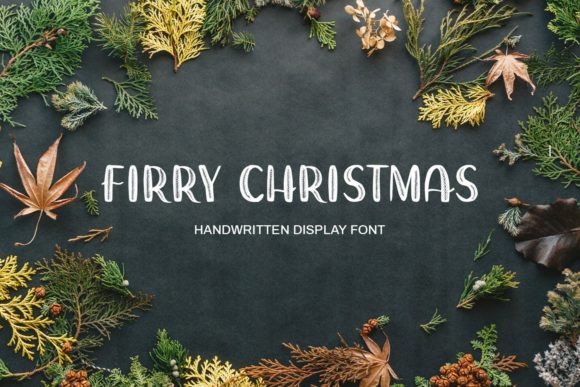
Introducing Firry Christmas Font - A Festive Delight for Your Christmas Creations!
Step into a world of Christmas cheer with Firry Christmas Font, an enchanting display font that will add a touch of magic to all your festive designs. Crafted with the essence of Christmas, this font exudes joy, warmth, and the spirit of the season.
With its playful and whimsical style, Firry Christmas Font captures the charm and wonder of the holiday season. Each letter dances with a Christmas spirit, adorned with delicate ornaments and intricate details that evoke the beauty of a snowy winter wonderland.
Imagine sending heartwarming Christmas cards adorned with the Firry Christmas Font, spreading cheer to your loved ones. Create stunning Christmas decorations that come alive with the font's festive flair. Design eye-catching flyers and posters that ignite the holiday spirit in your community.
This versatile font is perfect for sublimation projects, adding a personal touch to mugs, t-shirts, and other Christmas gifts. Unleash your creativity with Firry Christmas Font and craft personalized ornaments, gift tags, and other festive keepsakes that will be cherished for years to come.
Embark on a crafting journey that's filled with Christmas magic as you explore the endless possibilities of the Firry Christmas Font. Its charming style and festive details will transform your designs into captivating creations that spread joy and happiness wherever they go.